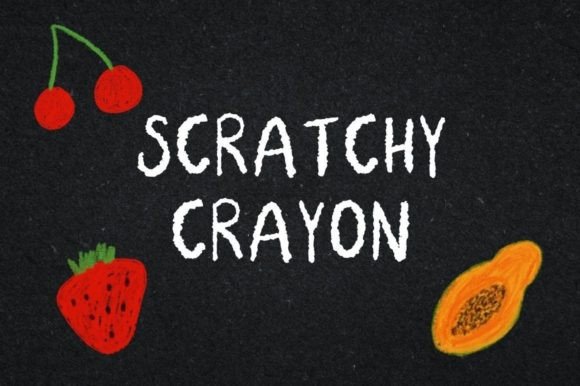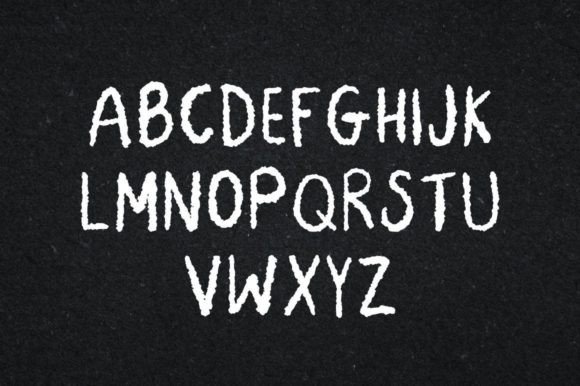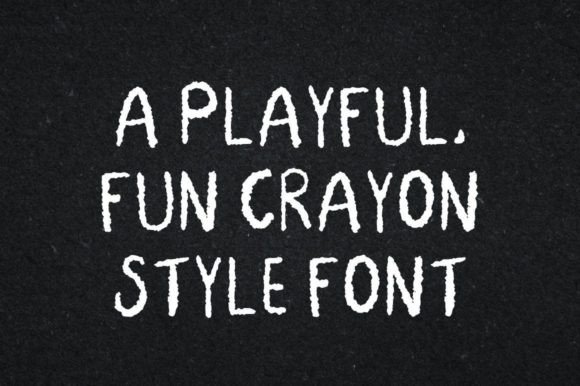
Scratchy Crayon Font
About Scratchy Crayon Font
This playful and youthful font is designed to replicate a child’s handwriting with a crayon, adding a touch of whimsy and creativity to your projects. Its textured and highly unique appearance makes it a versatile choice for various use cases, ranging from social media and blogs to product designs.
The childlike quality of the font adds a sense of innocence and fun to your text, making it particularly suitable for projects that aim to convey a playful and lighthearted vibe. Whether used on social media posts, blogs, or product designs, this font brings a delightful and unconventional charm to the forefront.
The crayon-inspired texture adds an extra layer of authenticity, creating a handcrafted feel that resonates with the spontaneity of a child’s artwork. This unique touch makes the font stand out and contributes to a visually interesting and engaging design.
Consider utilizing this font for social media posts where you want to infuse a sense of joy and creativity. Its youthful and playful nature makes it ideal for conveying messages in a light and entertaining manner, capturing the attention of your audience.
In blog designs, the font can bring a casual and friendly tone, making your content more approachable and enjoyable for readers. It adds a personal touch that complements a variety of topics, especially those related to children, crafts, or creative pursuits.
For product designs, especially those targeting a younger audience, the playful and textured qualities of the font can enhance the overall appeal. It adds a distinct and memorable element that sets your products apart.
In conclusion, this playful and youthful font with crayon-inspired texture is a creative and charming addition to your design toolkit. Whether applied to social media, blogs, or products, it brings a sense of joy and authenticity that resonates with the carefree spirit of childhood.